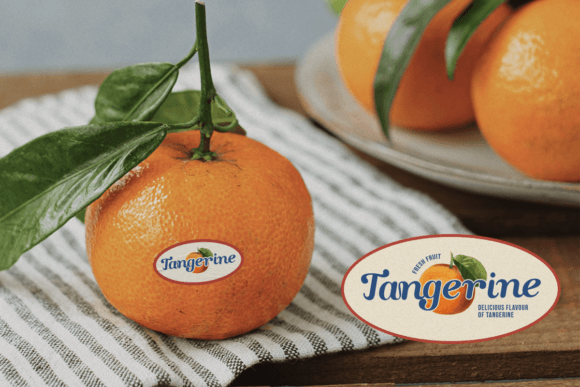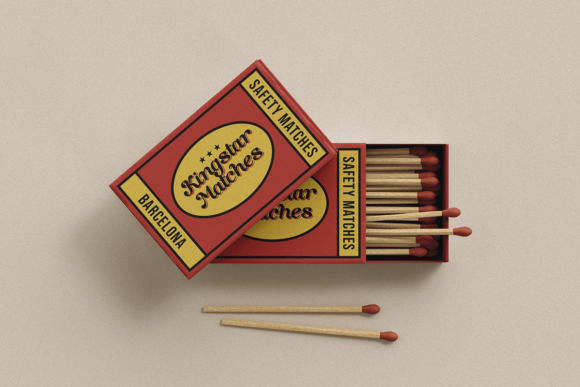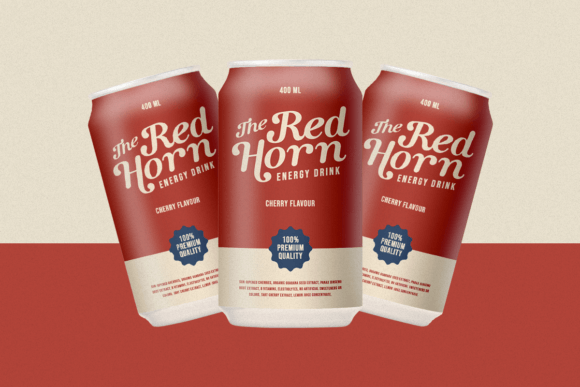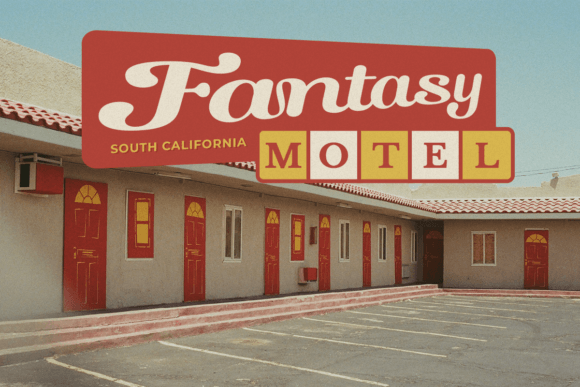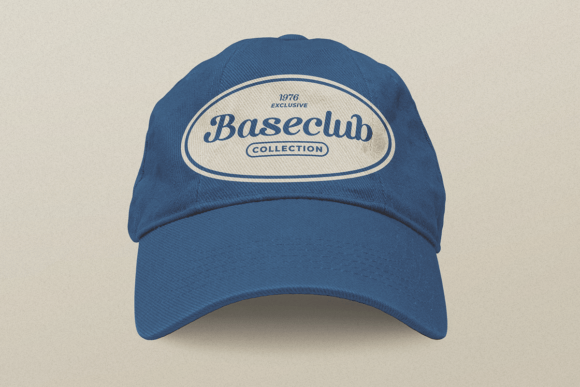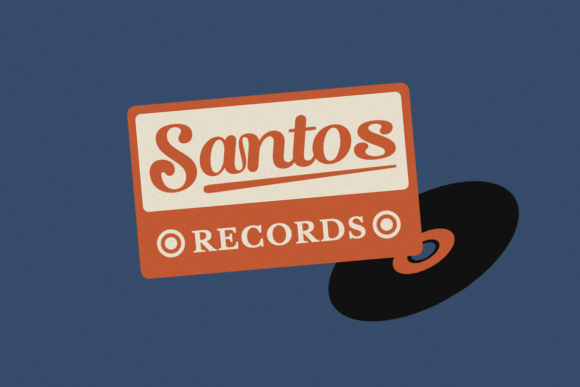
Introducing Egalia Kokane: A Timeless Retro Script Font
In the world of typography, few fonts manage to capture the essence of elegance and nostalgia as perfectly as Egalia Kokane. This exquisite retro script font, crafted by Windfall Studio, is a masterpiece that seamlessly blends classic sophistication with a vintage charm. Whether you’re a designer looking to elevate your projects or a crafter seeking the perfect typography for your creations, Egalia Kokane is an exceptional addition to your toolkit.
The Essence of Egalia Kokane
Egalia Kokane is more than just a script font; it’s a journey back to an era of stylish, retro design. This carefully crafted typeface is designed to evoke a sense of nostalgia, making it perfect for vintage-themed projects, stylish scripts, and adding a touch of retro flair to your designs. The font’s elegant and refined appearance makes it an excellent choice for a wide range of applications, from bold headlines and elegant wedding invitations to minimalist branding projects.
What Makes Egalia Kokane Stand Out?
So, what sets Egalia Kokane apart from other script fonts? Here are a few key features that make it a standout:
- Handcrafted Quality: Every letter in Egalia Kokane is meticulously crafted to ensure a clean, professional look. This attention to detail gives the font a unique, personalized feel that’s hard to find in digital typefaces.
- Vintage Appeal: The font’s retro charm is perfect for adding a touch of nostalgia to your designs. Whether you’re creating a vintage-themed project or simply want to add some classic elegance, Egalia Kokane has you covered.
- Versatility: Egalia Kokane is incredibly versatile, making it suitable for a wide range of projects. From decorative monograms and calligraphy to tech-inspired designs, this font can adapt to any style or theme.
Egalia Kokane is an excellent choice for designers and crafters looking to add a touch of elegance and sophistication to their work. Here are a few ways you can use this exceptional font:
- Vintage-Themed Projects: Add a touch of nostalgia to your designs with Egalia Kokane’s retro charm. Perfect for creating vintage-themed posters, flyers, and brochures.
- Wedding Invitations and Stationery: The font’s elegant and refined appearance makes it perfect for wedding invitations, stationery, and other formal documents.
- Branding and Packaging: Use Egalia Kokane to add a touch of sophistication to your branding and packaging designs. The font’s versatility makes it suitable for a wide range of industries and applications.
- Digital and Print Media: Whether you’re creating digital content or print materials, Egalia Kokane is an excellent choice. The font’s clean, professional look ensures that your designs will look great in any medium.
Why Choose Egalia Kokane?
With so many script fonts available, why choose Egalia Kokane? Here are a few compelling reasons:
- Unique and Exclusive: Egalia Kokane is a unique and exclusive font that’s sure to set your designs apart from the crowd.
- High-Quality Design: The font’s handcrafted quality ensures that every letter is perfect, providing a clean, professional look.
- Exceptional Value: With its versatility and wide range of applications, Egalia Kokane offers exceptional value for designers and crafters.
In conclusion, Egalia Kokane is an exceptional retro script font that’s perfect for designers and crafters looking to add a touch of elegance and nostalgia to their work. With its handcrafted quality, vintage appeal, and versatility, this font is sure to become a staple in your design toolkit. Whether you’re working on vintage-themed projects, stylish scripts, or simply want to add a touch of retro flair, Egalia Kokane has you covered. So why wait? Discover the timeless charm of Egalia Kokane and elevate your designs to new heights.